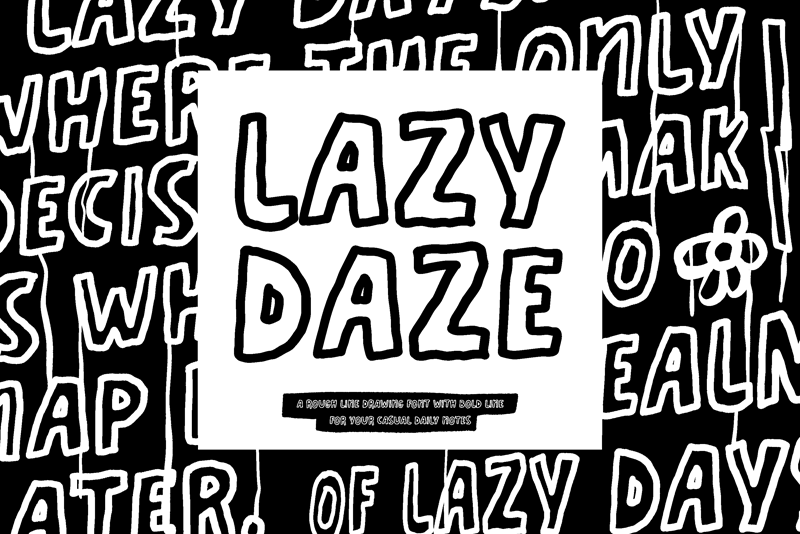
Lazy Faze fonts are typefaces that mimic the appearance of hand-drawn or hand-written text using lines. These fonts often simulate the irregularity, imperfection, and organic flow of human-made lines. Here are some characteristics: |